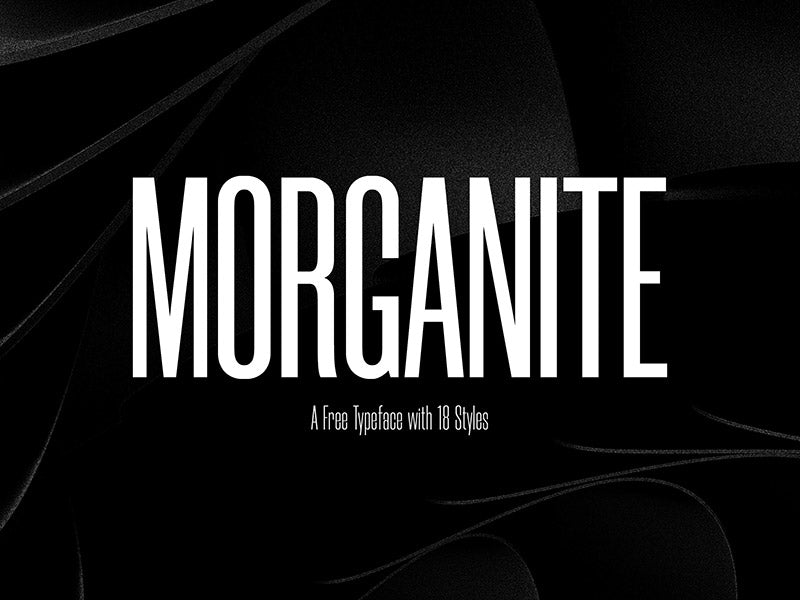
Free Morganite Condensed Font
We're glad to feature this beautiful condensed font - free download. Freebies Bug has featured this amazing and beautiful free typeface. This is absolutely beautiful font so you can easily make world-class designs.